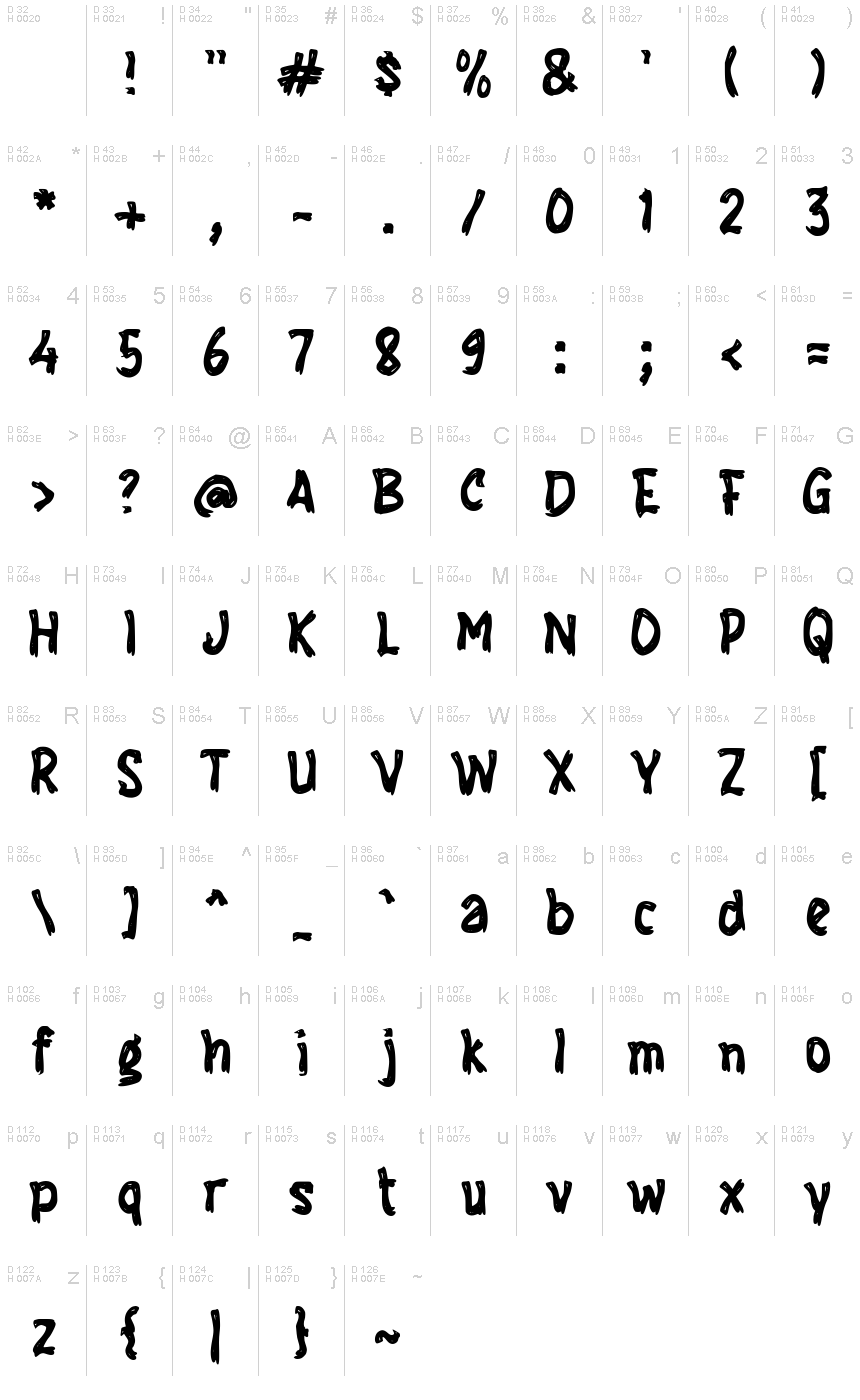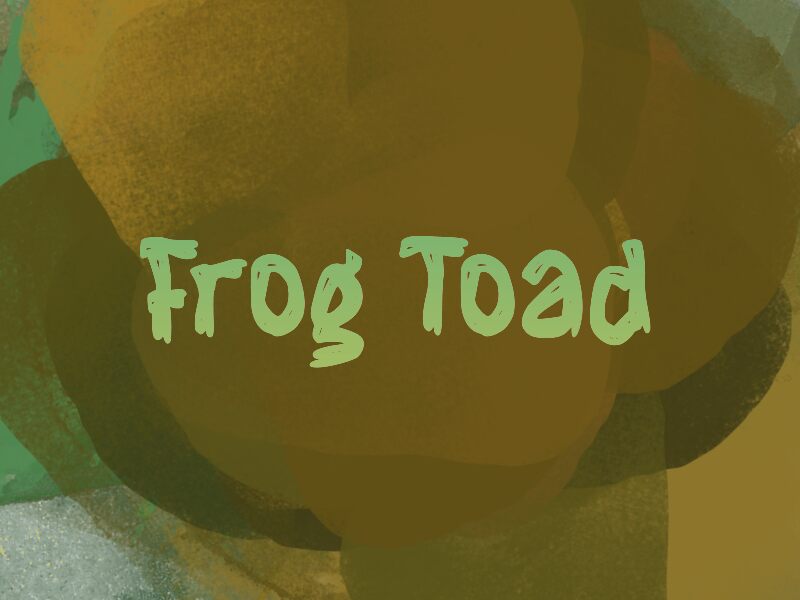
Frog Toad
Frog Toad is a captivating script font that exudes a delightfully unconventional charm. Designed by wep, this font boasts a whimsical, almost anarchic aesthetic, with its irregular, jagged letterforms evoking a sense of playful disarray. The harsh, trash-inspired style adds a raw, unrefined edge, making it an intriguing choice for those seeking to inject a dose of rebellious personality into their designs.
Whether applied to bold headlines, eclectic branding, or eye-catching packaging, Frog Toad's distinct visual character has the power to command attention and leave a lasting impression. Its versatility extends beyond traditional boundaries, making it a compelling option for a wide range of creative applications, from punk-inspired music covers to subversive art projects.